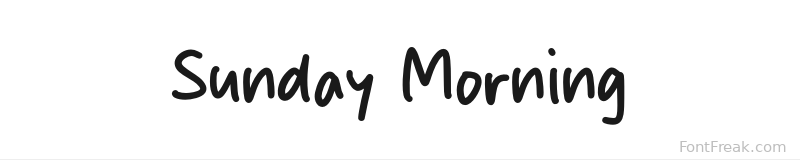
Sunday Morning
About Sunday Morning
The Sunday Morning font by MJType is a charming handwritten typeface that exudes warmth and personality. With its fluid strokes and slightly irregular forms, this font captures the essence of casual elegance, making it perfect for a variety of creative projects. The strokes feature a moderate weight, providing a balanced contrast that enhances readability while maintaining a friendly appearance. The spacing is thoughtfully designed to ensure harmony, allowing each character to breathe without feeling cramped.
This font lends itself beautifully to several specific use cases. For instance, it can be an excellent choice for wedding invitations, where its personal touch can evoke a sense of intimacy and joy. Additionally, Sunday Morning is ideal for restaurant menus, offering a welcoming vibe that complements the dining experience. Graphic designers might find it perfect for branding projects, particularly for businesses that want to convey a laid-back, approachable image. Content creators can also use this font to add flair to social media graphics or blog headers, drawing in audiences with its inviting style.
The target audience for Sunday Morning includes graphic designers, small business owners, and content creators who seek to add a unique and engaging element to their work. Its versatility makes it suitable for both casual and formal applications, appealing to a wide range of creative professionals.
What sets the Sunday Morning font apart is its ability to evoke emotion through its handwritten aesthetic. It combines the spontaneity of natural handwriting with the sophistication needed for professional designs. The Sunday Morning font free download offers not only accessibility but also a chance to infuse your projects with delightful character and charm, making it a standout choice for those looking to make a lasting impression.